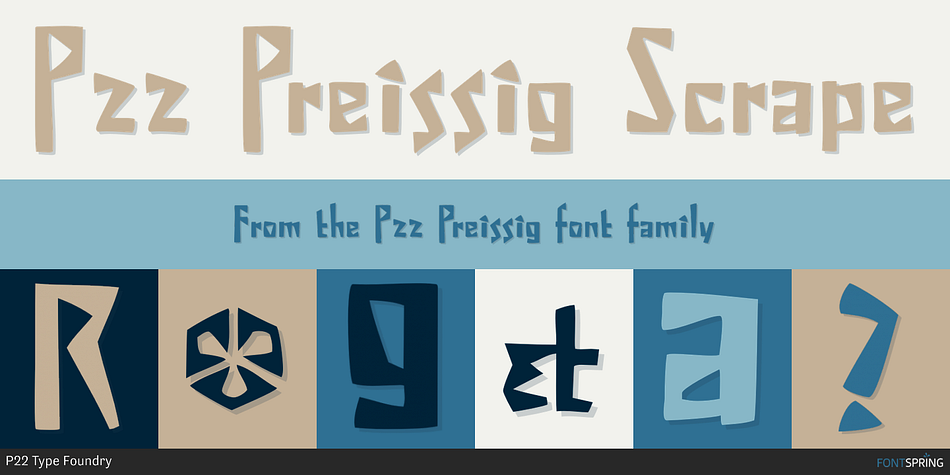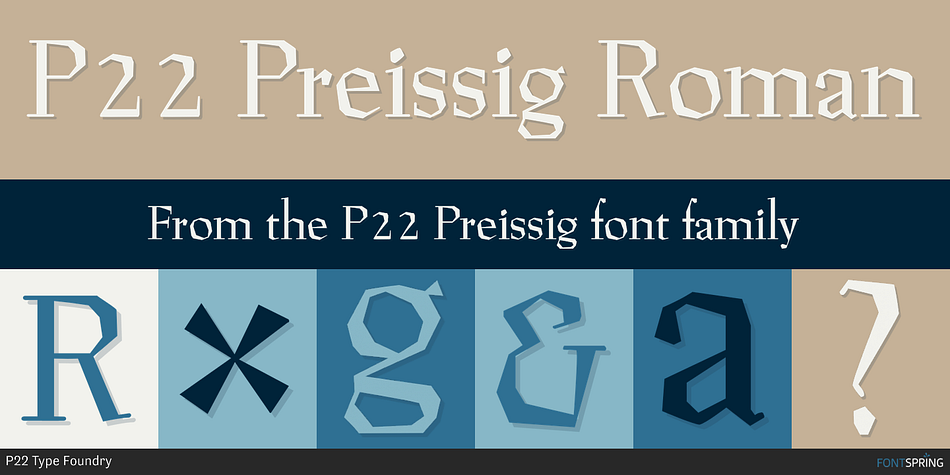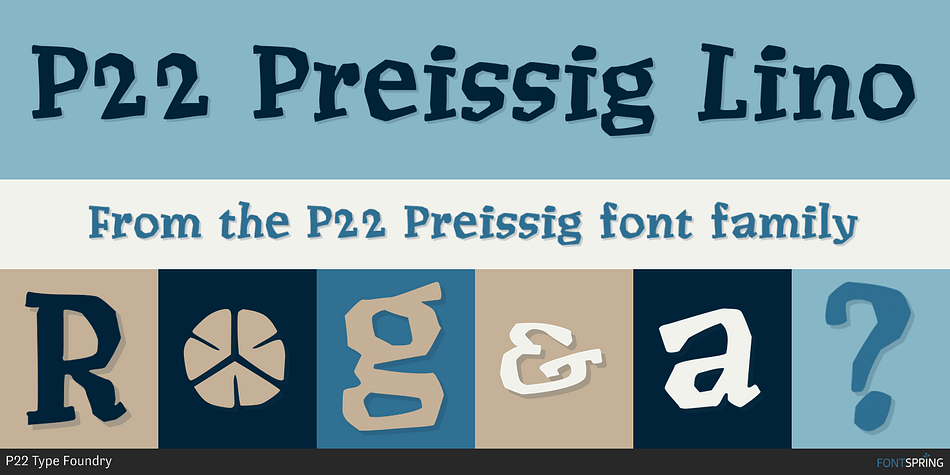
P22 Preissig is a dingbat and novelty font family. This typeface has four styles and was published by P22 Type Foundry.
Type designs of Vojtech Preissig show a great affinity for hand-craftmship and a distinct attempt to avoid appearing too clean. Legend has it Pressig hand cut fonts in linoleum, which served as the basis for this font, dating about 1912. Also incorporated are elements from other “hand-cut” Preissig alphabets.